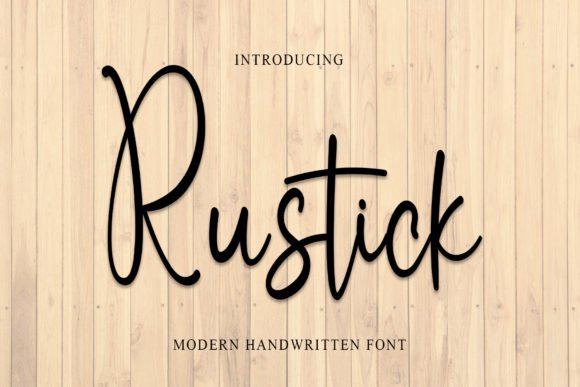
Step into a world of timeless elegance with Rustick, a script font that encapsulates the warmth of winter's embrace. Immerse yourself in the charm of hand-lettered calligraphy, where each stroke tells a story of artistry and passion.
Rustick is not just a font; it's an emotion, a reflection of your refined taste. Its contemporary atmosphere and impeccable form emanate sophistication, making it the perfect choice for projects that demand a touch of class and allure. Whether you're a designer crafting a captivating logo, a blogger seeking to elevate your content, or a social media enthusiast wanting to make a statement, Rustick is your perfect companion.
With its balanced and varied design, Rustick enhances the beauty of your projects, adding a touch of elegance that speaks volumes. Its meticulously crafted glyphs and ligatures, accessible with ease through PUA encoding, offer endless possibilities for creative expression.
Indulge in the timeless appeal of Rustick, a font that transcends trends and seasons. Let your designs radiate warmth and charm, capturing the hearts of your audience. Embrace the essence of winter's magic with Rustick, the font that ignites your imagination and sets your creativity ablaze.